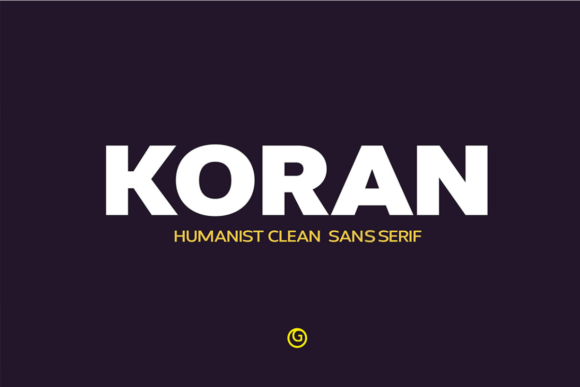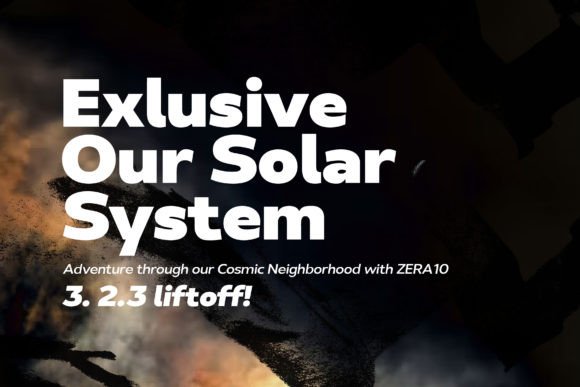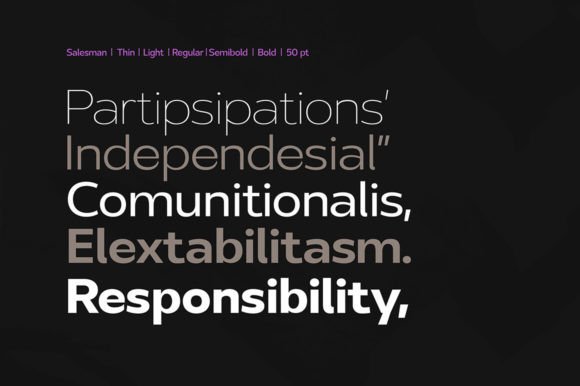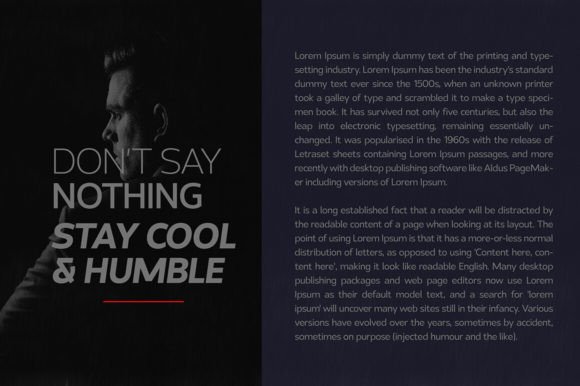
Koran Font
About the Koran Font
Elevate your designs with Koran Font, a font that combines sophistication with readability. Koran Sans is a clean family sans that is absolutely perfect for editorial headlines. The complete font family of upright and italic letters makes it easy for you to use 18 styles in many projects. This font style is bold, bold, and sleek, making it perfect for editorial, web, posters, t-shirts, magazine covers, etc
Koran sans exudes character but is still useful thanks to its restrained geometric styling and modern construction.
Its strong geometric structure and bold strokes make Koran Sans ideal for impactful headlines, logos, and short, concise text on posters or packaging. It projects a modern, confident personality, well-suited to brands emphasizing innovation and authority. However, its boldness makes it less suitable for body text or lengthy paragraphs, where readability would suffer. Avoid using it in user interfaces, where legibility at small sizes is crucial.
Pairing Koran Sans effectively depends on the desired balance. For a more playful feel, consider pairing it with a rounded sans-serif like Lato. To maintain a sophisticated look, a classic serif like Garamond or a minimalist sans-serif like Helvetica Neue would complement its sleek geometry. For a bolder statement, a geometric sans-serif like Futura could amplify its modern feel.
Ultimately, Koran Sans’ strength lies in its ability to convey a sense of strength and sophistication. This makes it particularly effective in projects that need to communicate a message with impact and authority.